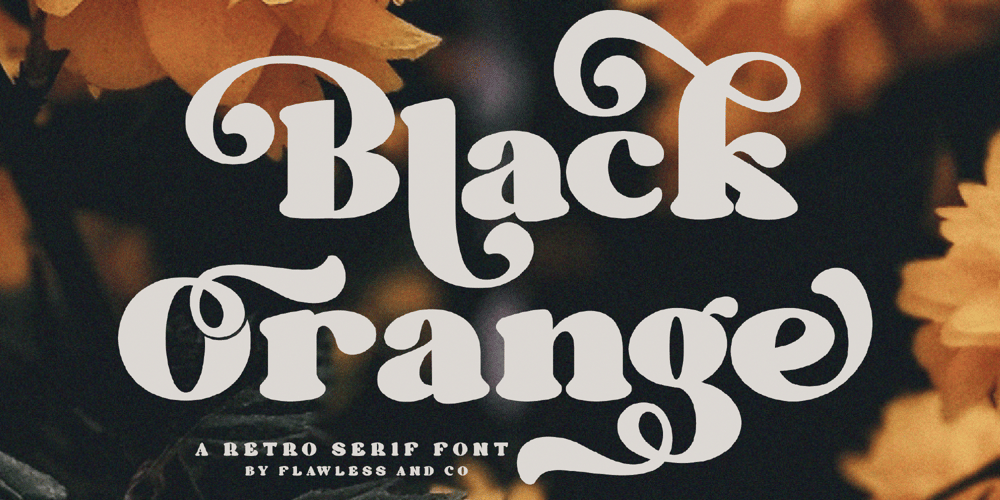
Black Orange Font Family was designed by Achmad Yani and published by Flawlessandco. Black Orange contains 1 styles and family package options. Black Orange is a Retro Serif Font. Journey back in time to the classic and timeless era of design with “Black Orange,” a captivating retro serif font that exudes the essence of vintage charm.There’s some connected letters and some alternates that suitable for any graphic designs.This font support for some multilingual. Also contains uppercase A-Z and lowercase a-z, alternate character, numbers 0-9, and some punctuation.If you need help, just write me! Thanks so much for checking out my shop!